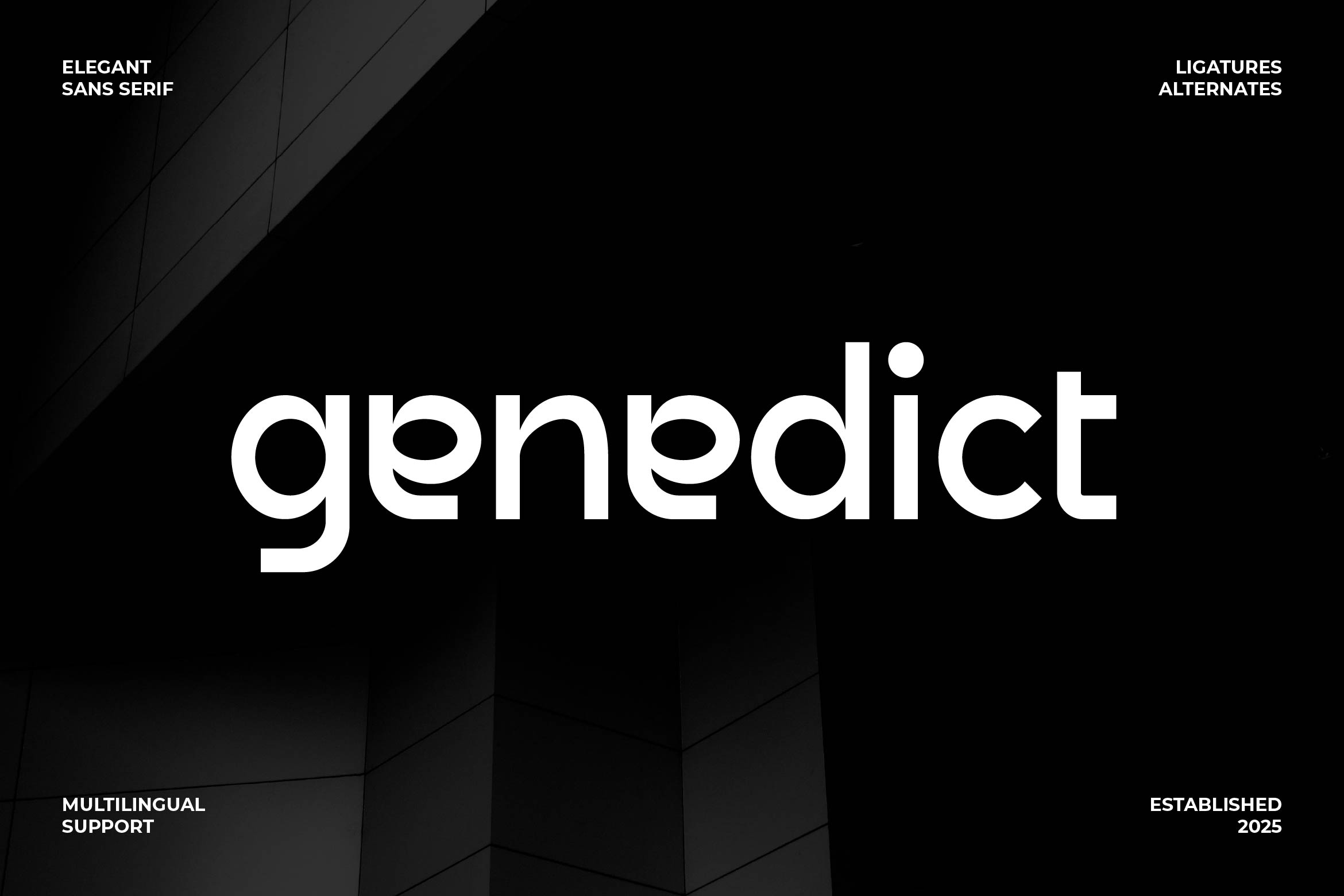
- Genedict Premium Sans Serif Font
Genedict is a refined sans serif font designed to bring modern sophistication and timeless versatility to your typography. With clean lines, balanced geometry, and elegant proportions, Genedict delivers a premium look perfect for branding, editorial layouts, corporate identities, packaging, and luxury web design.
Its minimalist construction ensures clarity and elegance, while subtle design details give it character and distinction. Whether used for bold headlines or sleek body text, Genedict adds confidence and professionalism to every project — making it ideal for creative studios, fashion brands, and tech companies alike.
The font includes uppercase and lowercase letters, numerals, punctuation, multilingual support, and stylistic alternates for flexible and polished typography.
Enhance your visual identity with Genedict — a premium sans serif typeface that blends simplicity, precision, and modern refinement.